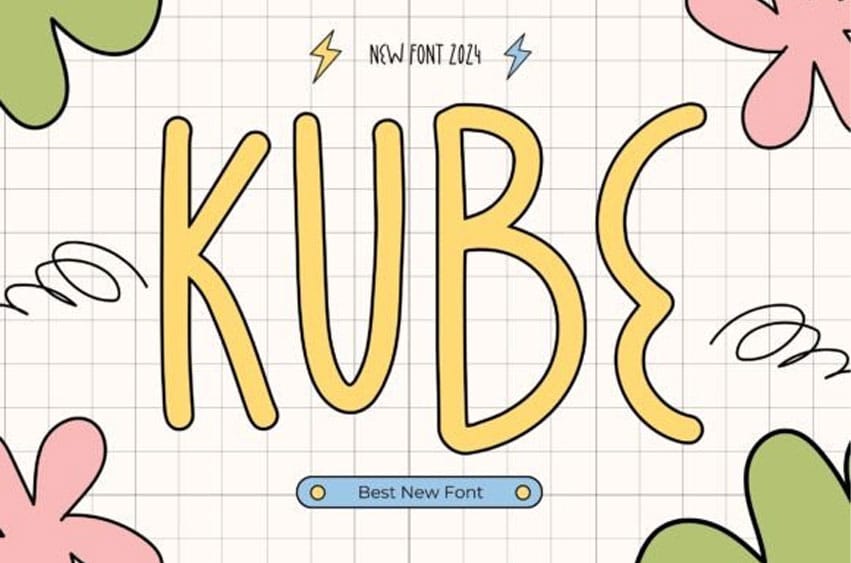
Kube Font is a cute and friendly sans-serif font that brings a playful touch to your designs. With rounded letterforms and a welcoming demeanor, it exudes approachability and warmth.
Ideal for projects requiring a friendly and modern aesthetic, Kube adds a delightful and charming quality to your creative expressions.